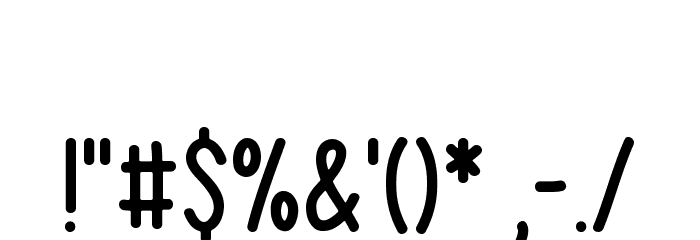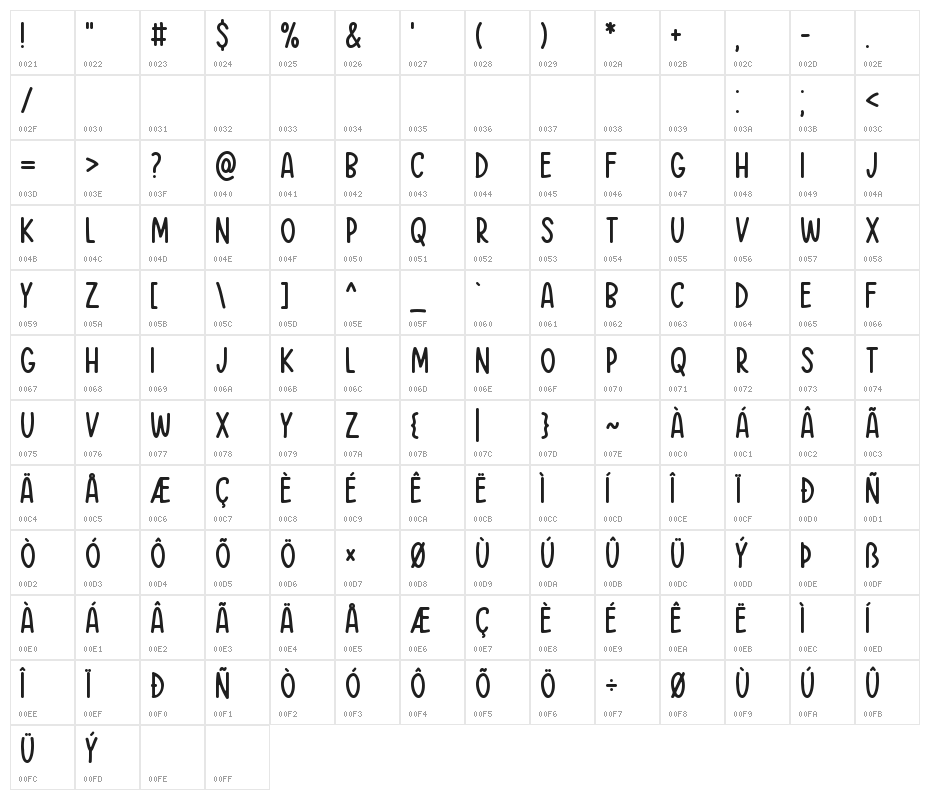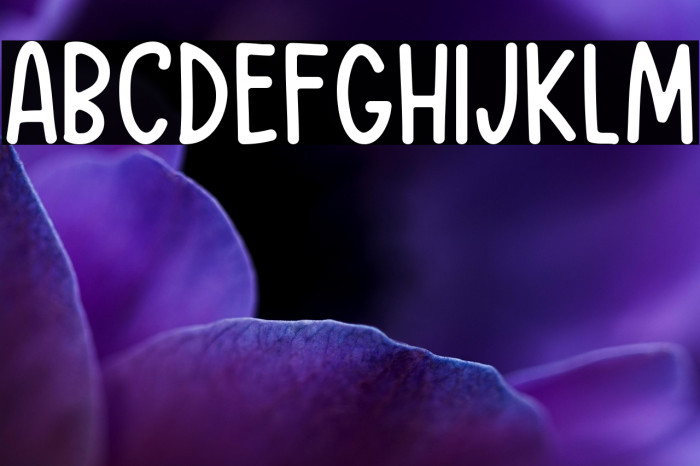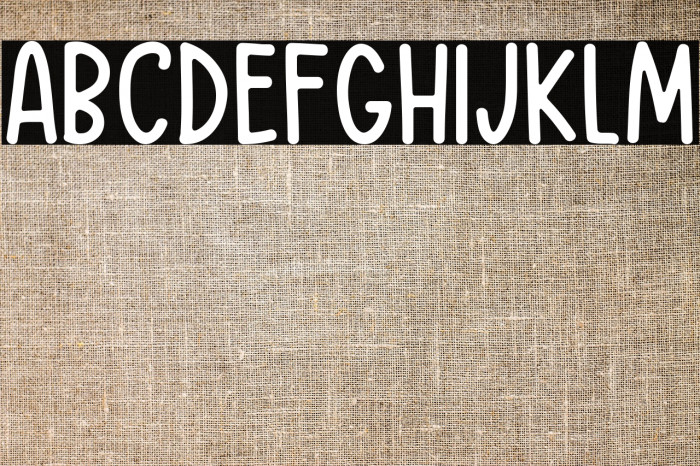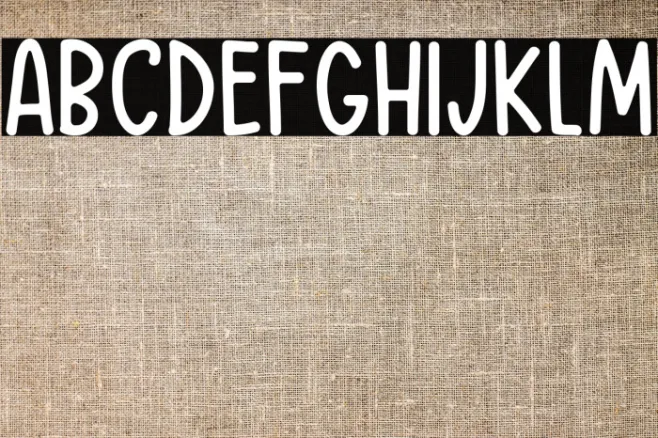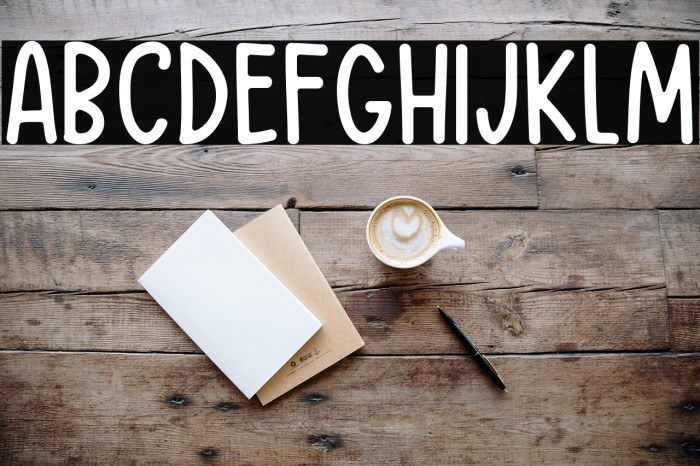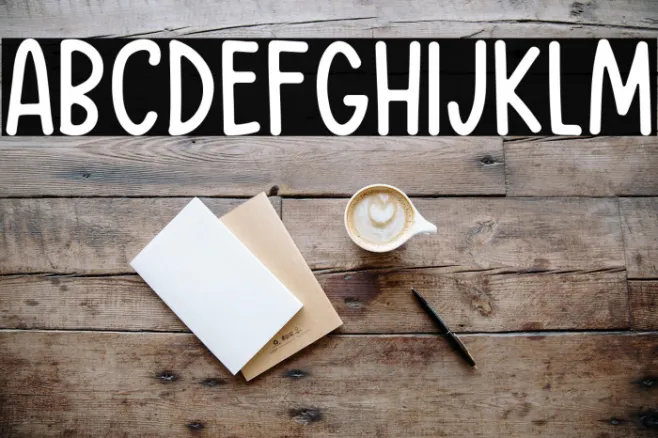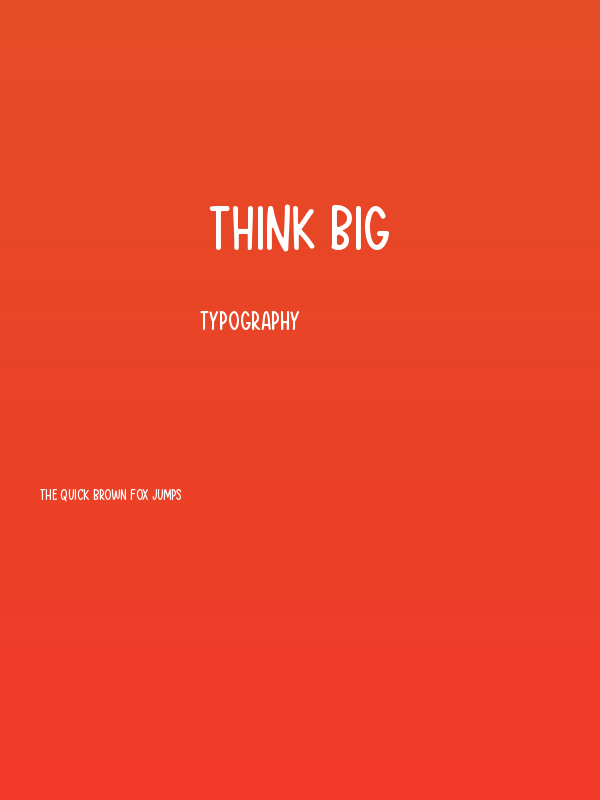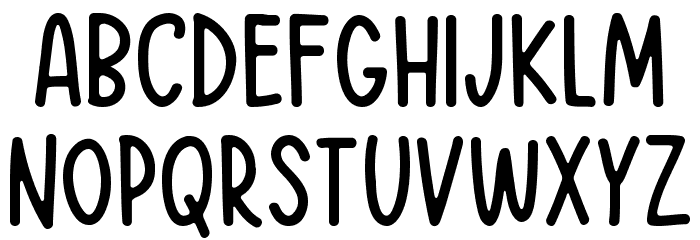
Think Big Font
This font features a playful and casual handwritten style, characterized by its rounded and slightly irregular letterforms. The uppercase and lowercase letters maintain a consistent height, giving it a uniform appearance while still retaining a sense of individuality in each character. The strokes are moderately thick, providing a bold presence without overwhelming the design. The font includes a full set of uppercase and lowercase letters, numerals, and a variety of punctuation marks, making it versatile for various applications. Its informal and friendly aesthetic makes it suitable for projects that aim to convey warmth and approachability.
| Use Case | Headlines, Logos, Informal text |
| Proposed Projects | Ideal for children's books, greeting cards, casual branding, and social media graphics. |